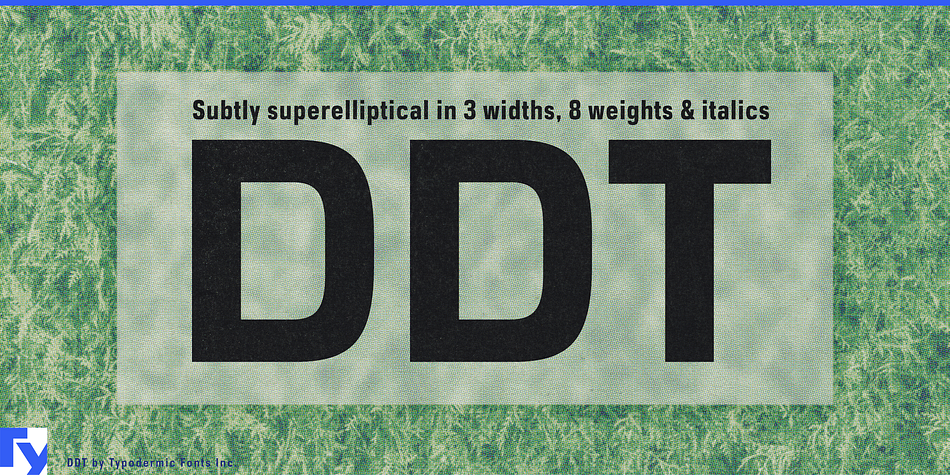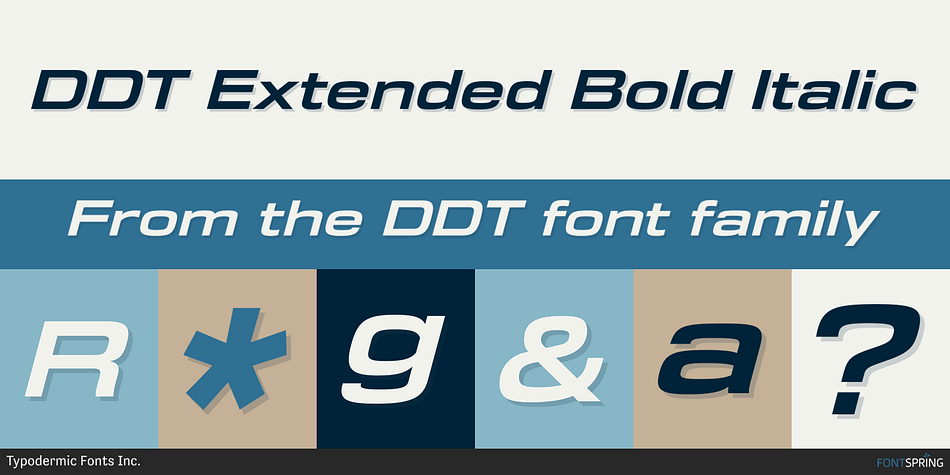
DDT Extended Bold Italic
DDT is a sans serif font family. This typeface has forty-nine styles and was published by Typodermic Fonts Inc.
Introducing DDT, the epitome of modern typography that exudes professionalism and authority in every stroke. With its unique superelliptical shape, DDT strikes the perfect balance between clarity and seriousness, drawing inspiration from the time-tested classics like Univers and Eurostile.
Not one to compromise on functionality, DDT offers a wide range of numeric styles, including monospaced lining numerals, proportional lining numerals, and proportional old-style numerals. And that’s not all—DDT is equipped with OpenType fractions and numeric ordinals, making it an ideal choice for all your design needs.
DDT is available in both condensed and regular widths, each boasting seven different weights and italics. So whether you’re looking to create an impactful heading or a sleek body text, DDT has got you covered.
Elevate your design game with DDT—the ultimate neutral-sans typeface that blends form and function seamlessly, leaving a lasting impression on your audience.